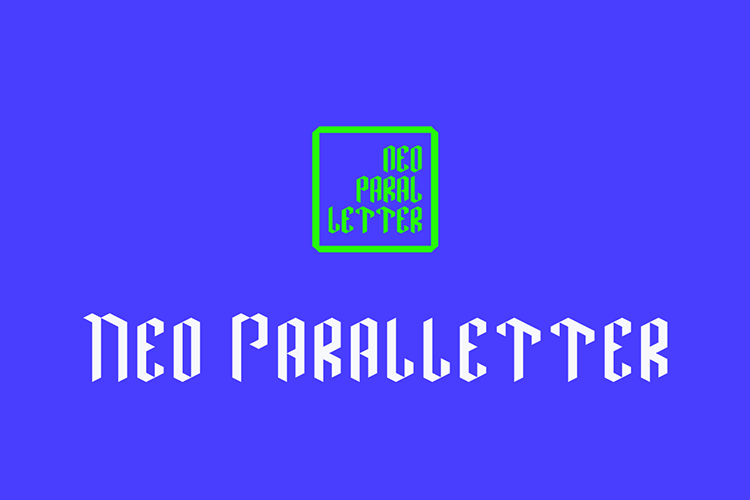
Neo Paralletter Font
Neo Paralletter is a geometric modern blackletter typeface. Neo Paralletter is a combination the boundaries between old and new, tradition and contemporary, that is an art form combines calligraphy, typography, and graffiti. You can use it as a logo, badge, packaging, headline, poster, t-shirt/apparel and wedding invitation.